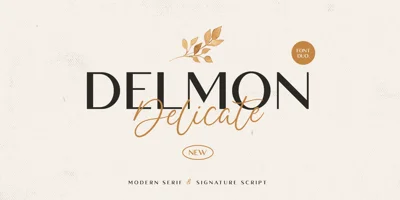
Delmon Delicate Font
Perfect for wedding invitations, luxury branding, greeting cards, fashion magazines, and delicate packaging, Delmon Delicate Font brings a soft and stylish touch to your creative projects.
What makes this font exciting is its flowing strokes, fine lines, and natural handwritten feel, which create a romantic and timeless look that captivates viewers.
The Delmon Delicate font family includes Regular and Italic styles, offering versatility for expressive and elegant typography.